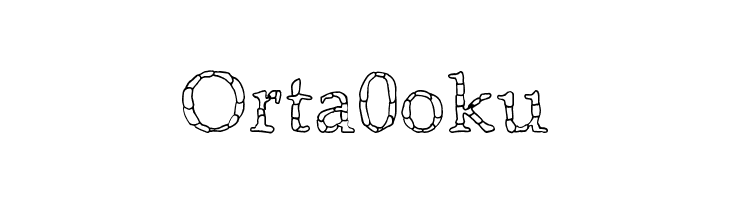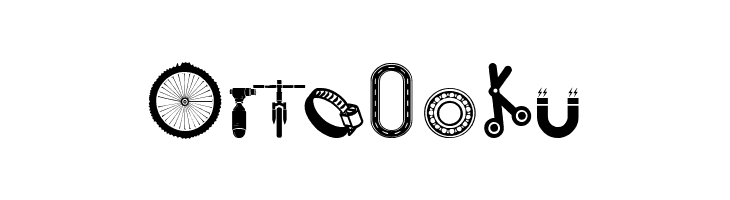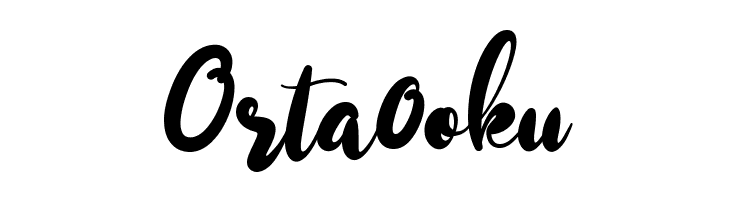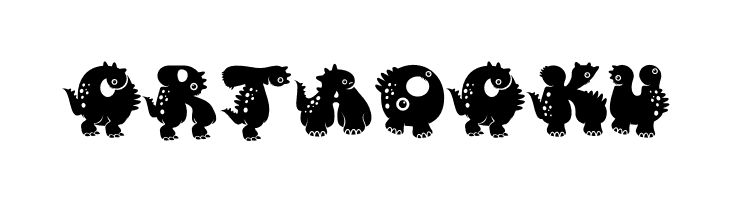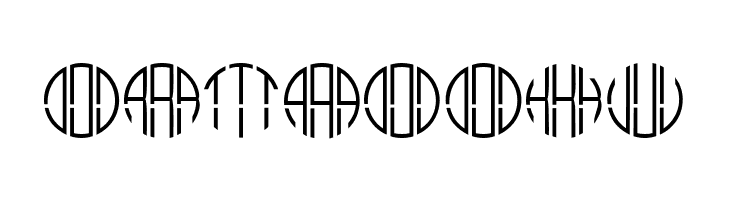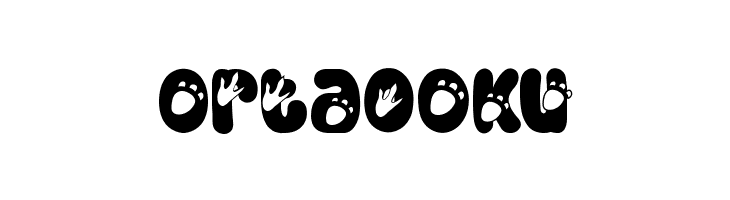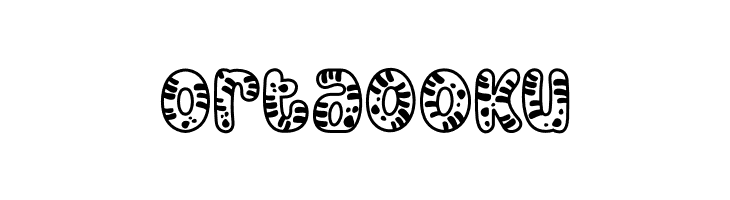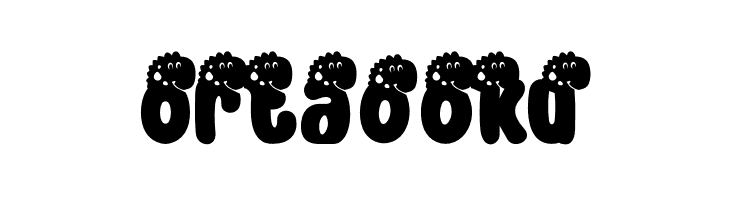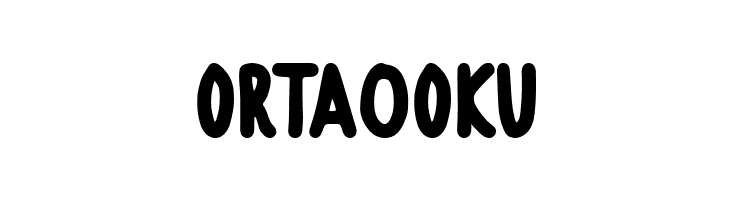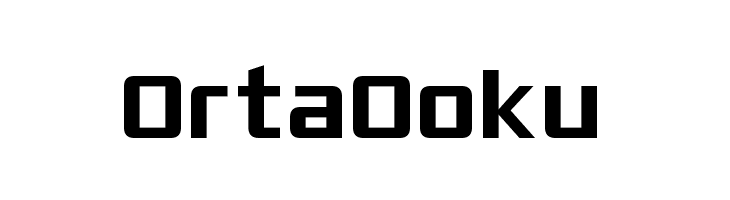
• Monitta
A bold, elegant script font with flowing, connected characters.
• Monkey Pie
Playful, bold, rounded hand-drawn font.
• Monkirta Pursuit NC
A bold, modern font with geometric lines and consistent stroke width.
• Monogram Circle 3 Alphabet
A decorative monogram font with characters enclosed in circles, offering a modern and elegant style.
• Monolithic
A decorative font with a mosaic-like, handcrafted appearance.
• Monster Bike
A decorative font inspired by bicycle and mechanical parts, ideal for thematic displays.
• Monster DIno
A playful, monster-themed font with bold, cartoonish characters.
• Monster Mash Dino 2
A playful, dinosaur-themed font with bold, patterned characters.
• Monster Mash Dino 5
A playful, dinosaur-themed decorative font with bold, rounded characters and integrated footprints.
• Monster Mash Dino 6
A playful, dinosaur-themed decorative font with bold, rounded characters.